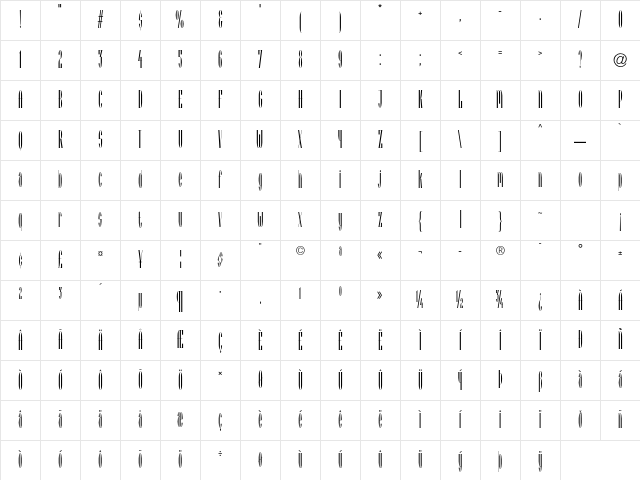
Arcadia LT Std Roman Free Font
Arcadia LT Std Roman
Designer: Neville Brody
Design Context for Arcadia LT Std
Arcadia LT Std is a composed and adaptable typeface that performs quietly and consistently across a wide range of design contexts. Its slender proportions lend an understated elegance to any composition.